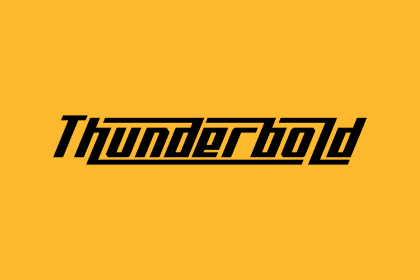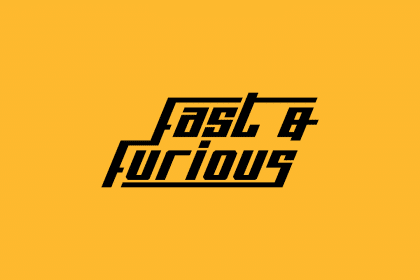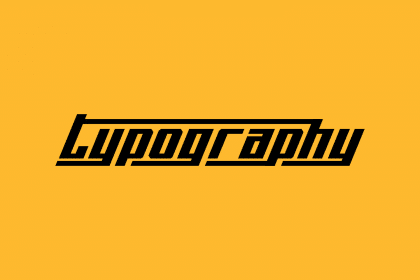
The Thunderbold is a powerful font, suitable for posters, banners, flyers, race numbers, logos, logotypes, and more. Be bold like Thunder!
- Designer: Gartype Studio